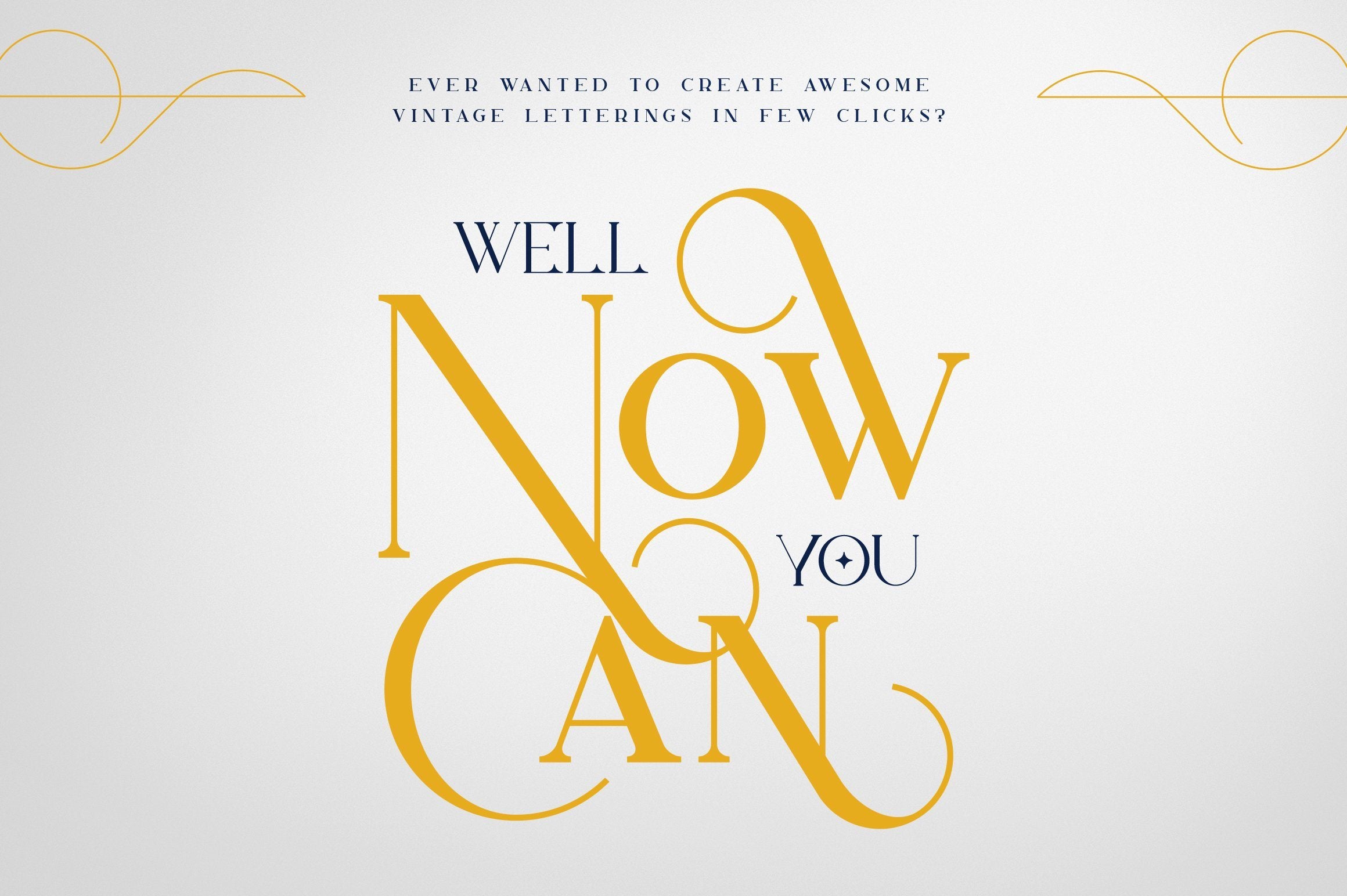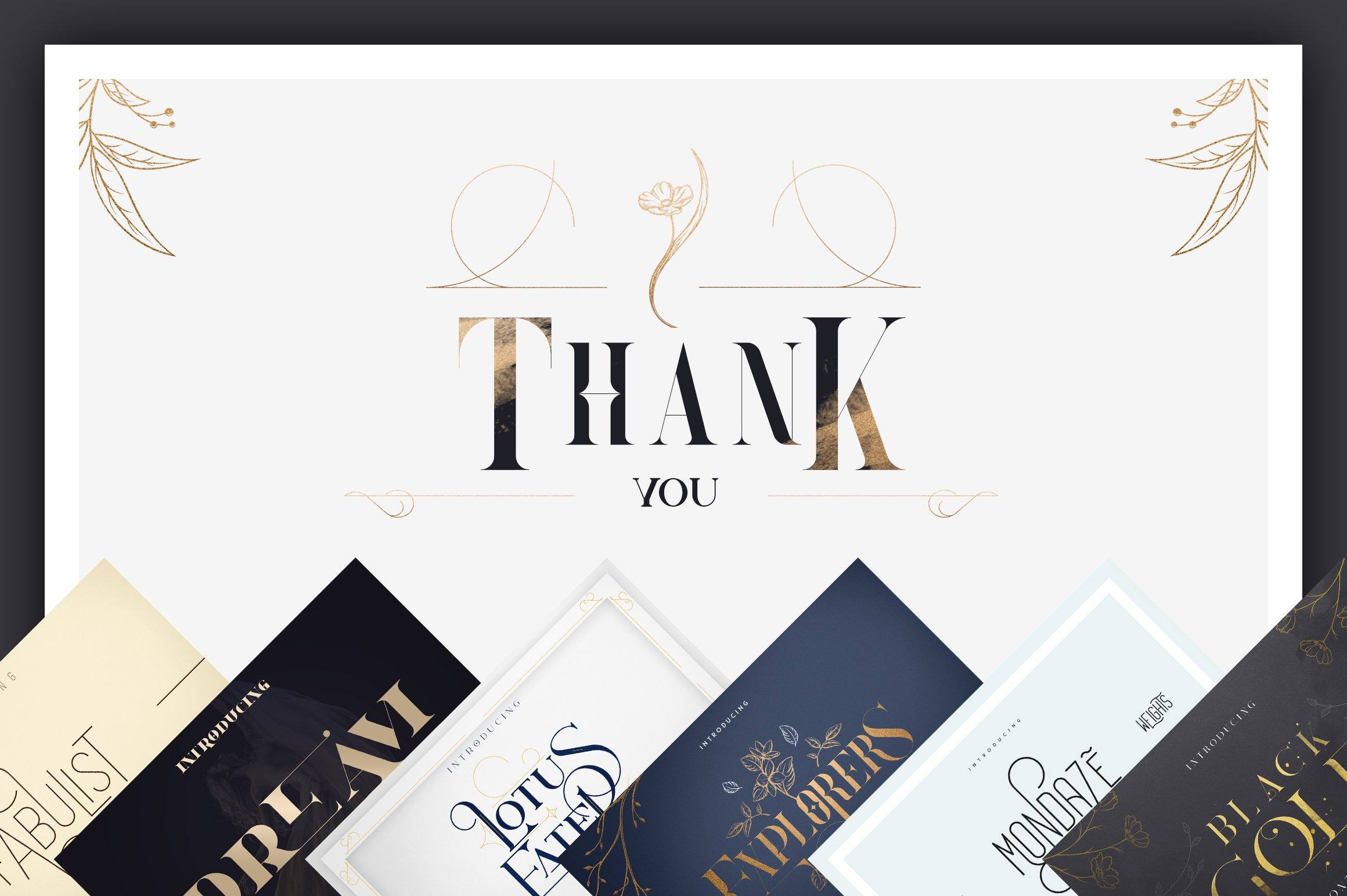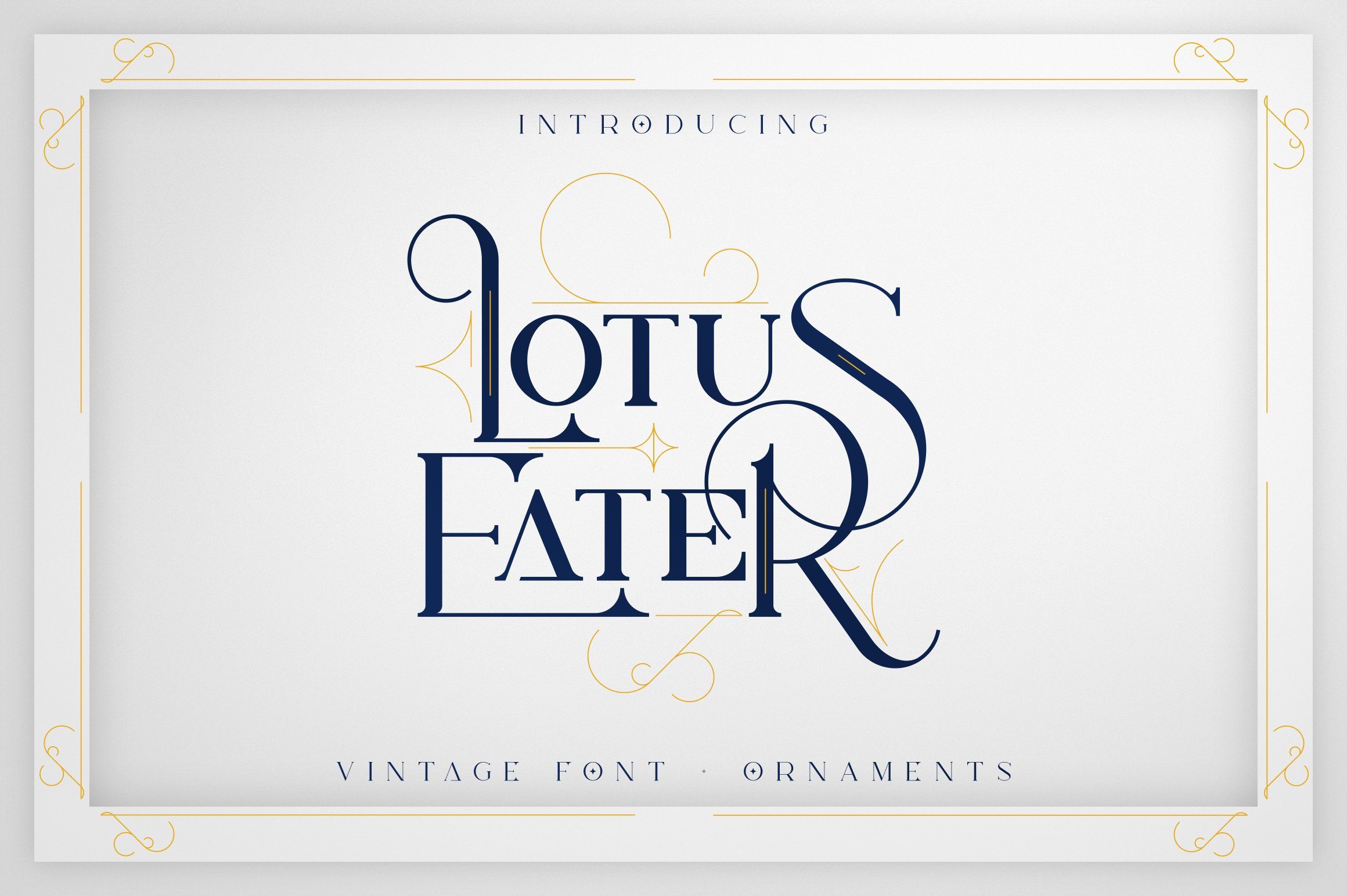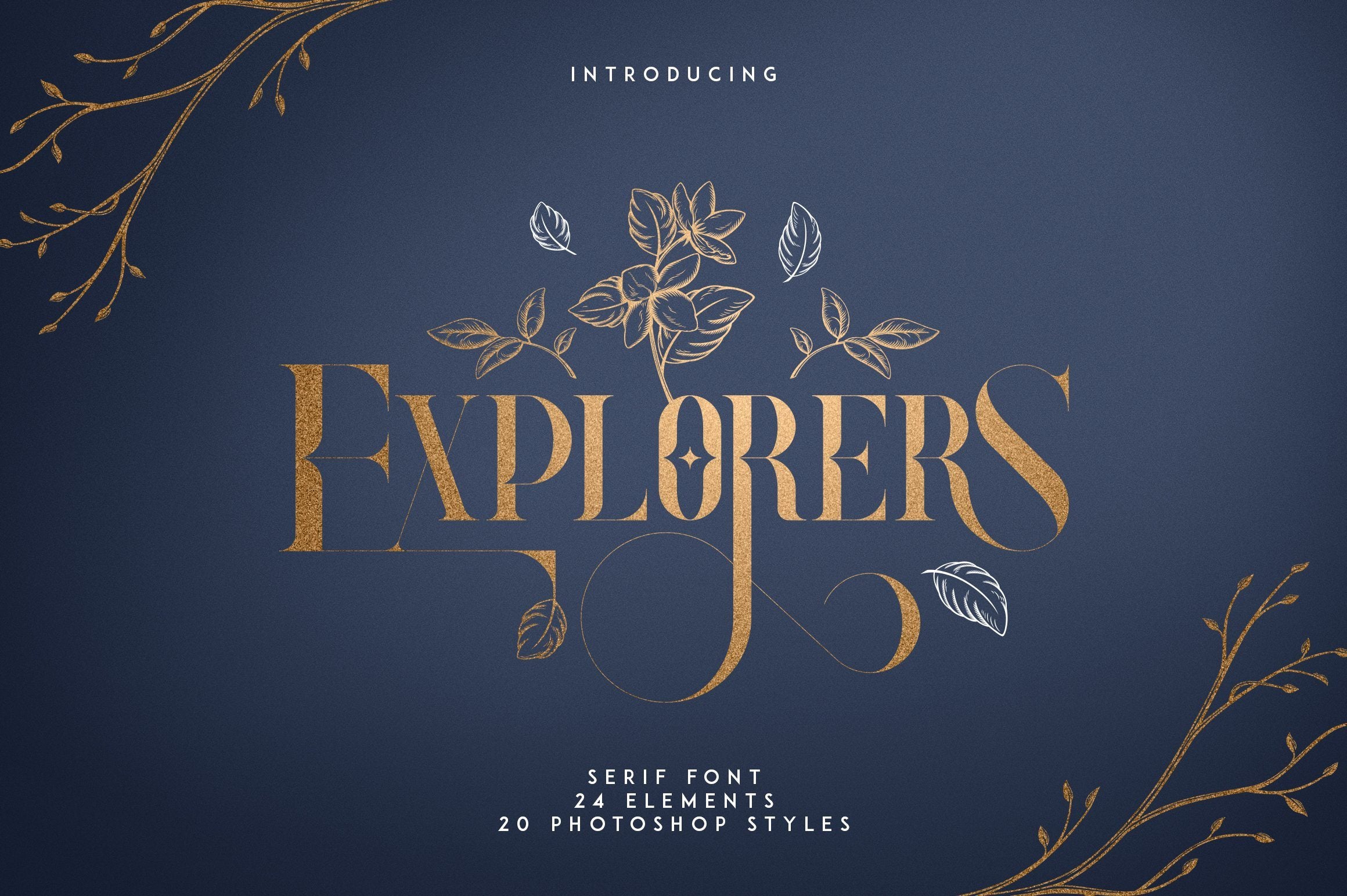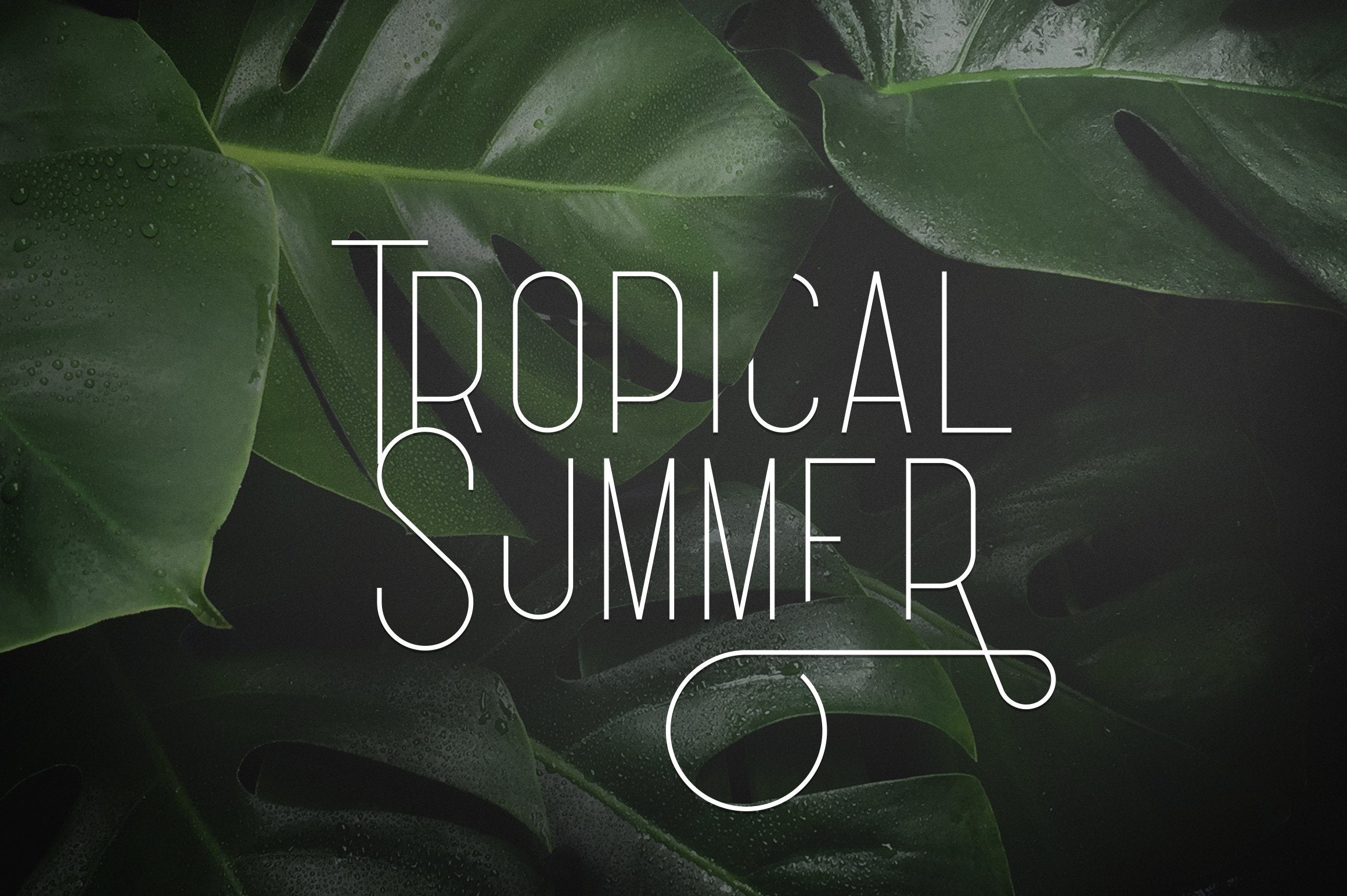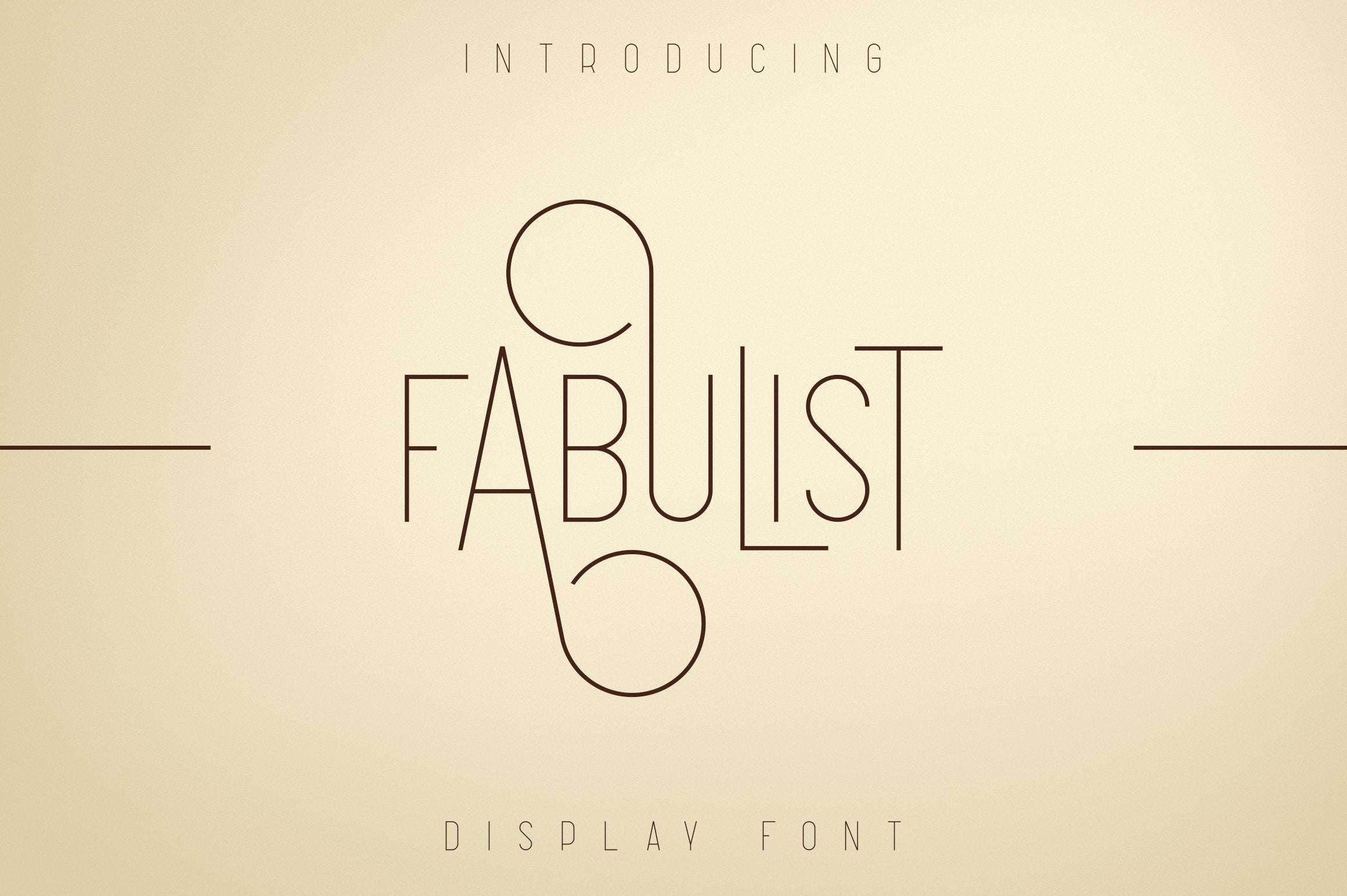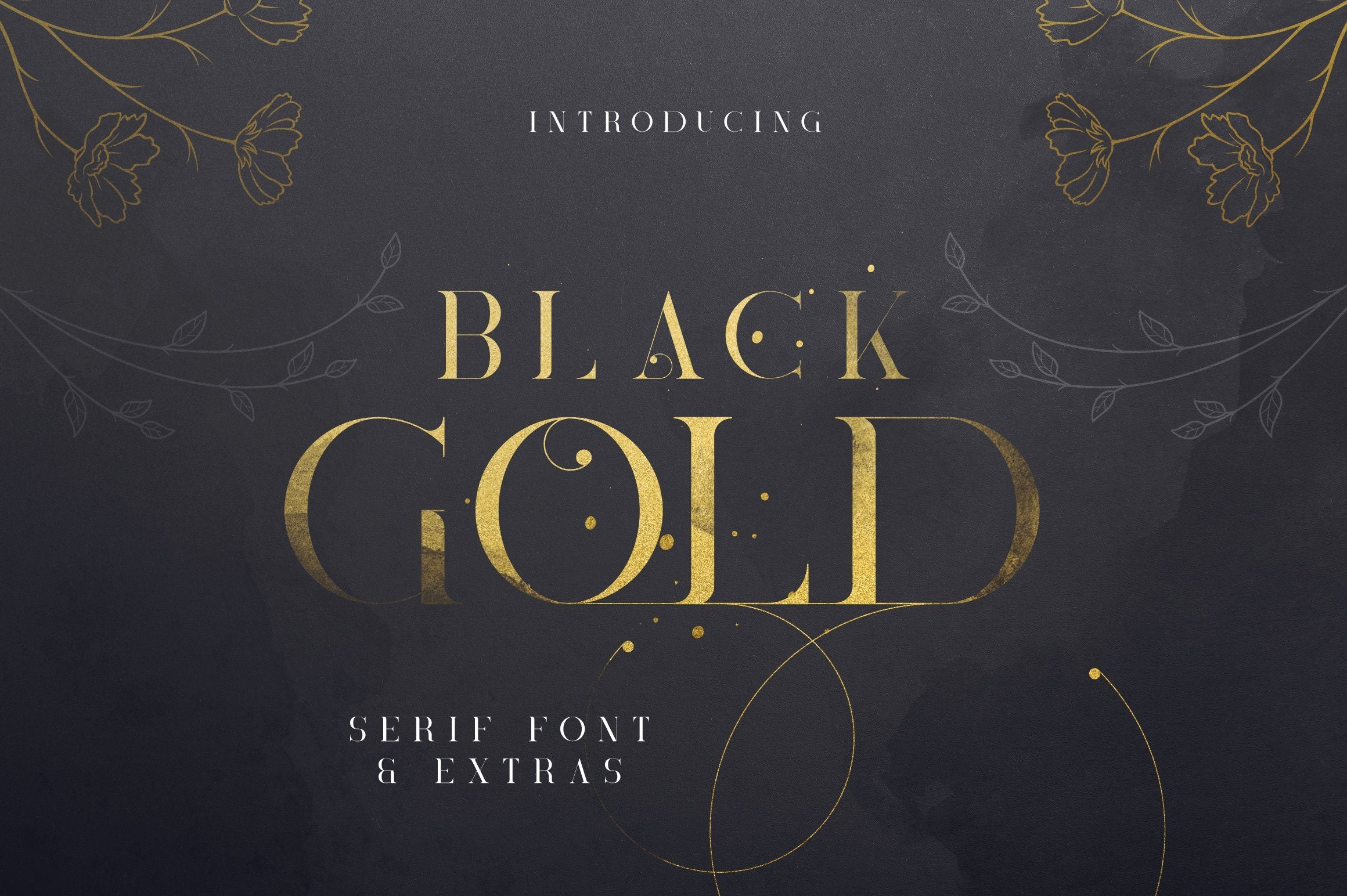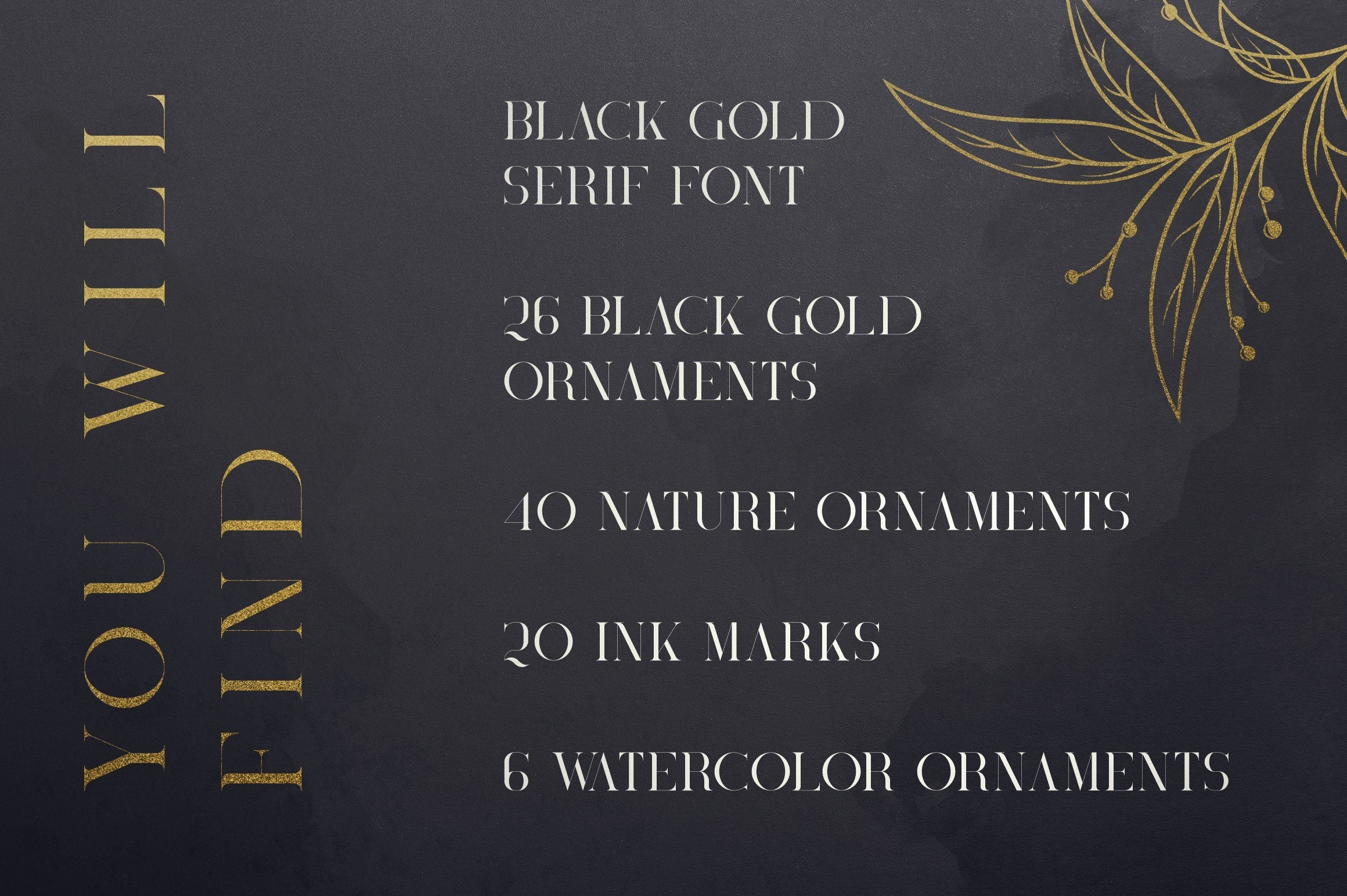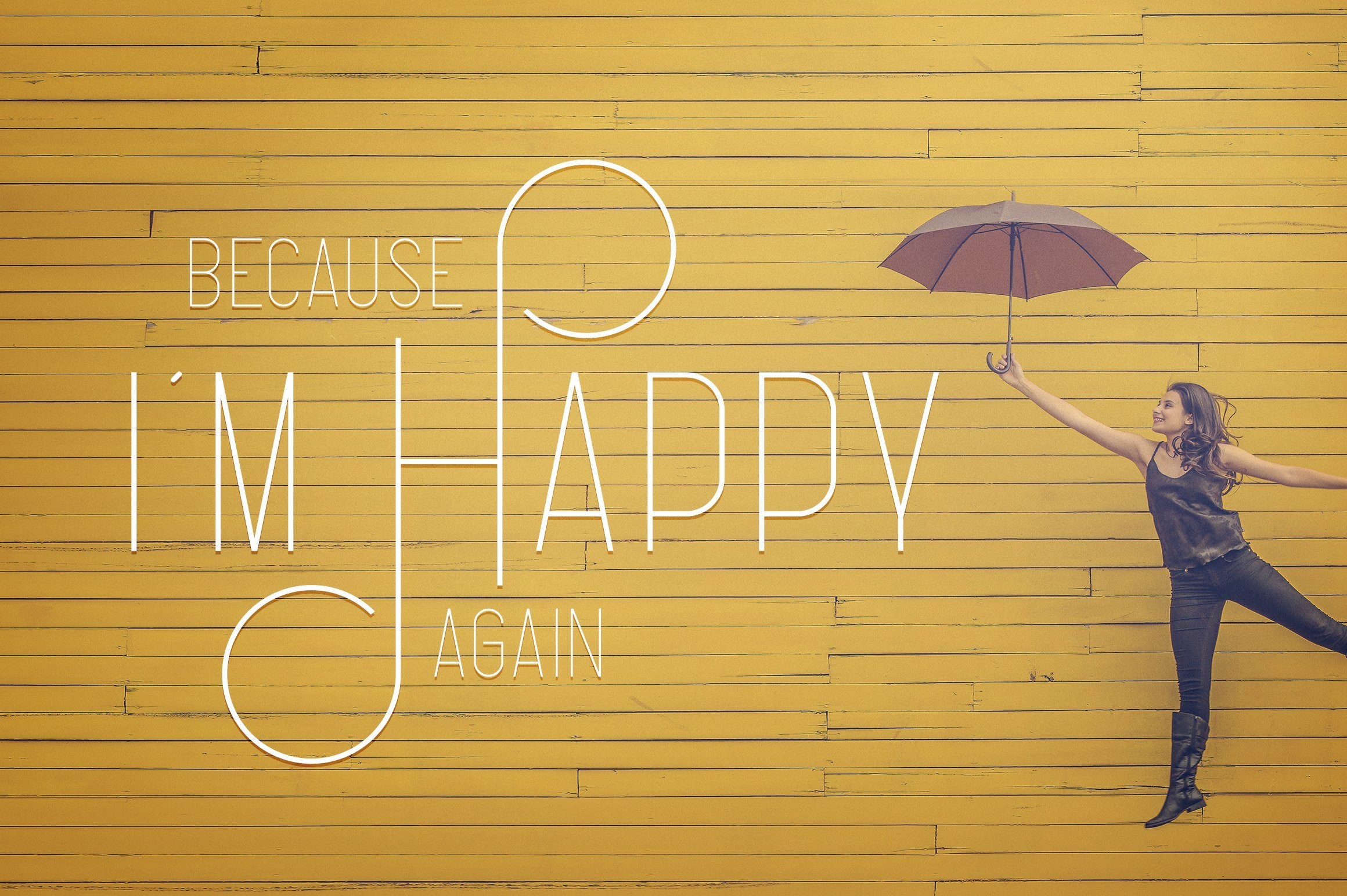
Bestseller Font Collection | 6in1
About Bestseller Font Collection | 6in1
Introducing the Bestseller font collection 6 typefaces in 1 Fabulist – Display font Fabulist is clean, modern font with tons of alternative glyphs, ligatures and multilingual support. It’s a very versatile font that works great in large and small sizes. Fabulist is perfect for branding projects, home-ware designs, product packaging, magazine headers – or simply as a stylish text overlay to any background image. Uppercase,lowercase, numeral,punctuation & Symbol Regular Tons of alternative glyphs Ligatures Multilingual support Explorers – Serif font + Extras Explorers is sophisticated font with tons of alternative glyphs, ligatures, elements, photoshop styles and multilingual support. It’s a very versatile font that works great in large and small sizes. Explorers is perfect for branding projects, home-ware designs, product packaging, magazine headers – or simply as a stylish text overlay to any background image. In the product you will find: Explorers serif font with tons of alternative glyphs, ligatures and multilingual support 24 Nature elements – Ai and EPS cs, PSD, JPEG, 24 PNGs files with transparent backgrounds 20 Photoshop styles in asl format Lotus Eater – Vintage font + extras Lotus Eater is clean, vintage font with ligatures, tons of alternative glyphs, ornament and multilingual support. It’s a very versatile font that works great in large and small sizes. Lotus Eater is perfect for branding projects, home-ware designs, product packaging, magazine headers – or simply as a stylish text overlay to any background image. Uppercase,lowercase, numeral,punctuation & Symbol Ligatures Tons of alternative glyphs 52 Ornaments Multilingual support Mondaze Typeface – 4 weights Mondaze is clean, rounded typeface with 4 weights, tons of alternative glyphs and multilingual support. It’s a very versatile font that works great in large and small sizes. Mondaze is perfect for branding projects, home-ware designs, product packaging, magazine headers – or simply as a stylish text overlay to any background image. Uppercase,lowercase, numeral,punctuation & Symbol Light Regular Bold Black Tons of alternative glyphs Clean Rounded Multilingual support Black Gold serif font + Extras Black Gold is sophisticated font with tons of alternative glyphs, ornaments, nature elements, photoshop styles, watercolours, ink marks and multilingual support. It’s a very versatile font that works great in large and small sizes. Black Gold is perfect for branding projects, home-ware designs, product packaging, magazine headers – or simply as a stylish text overlay to any background image. In the product you will find: Black Gold serif font with tons of alternative glyphs and multilingual support 26 Black Gold ornaments 40 Nature elements in PSD, EPS, Ai, JPEG formats 20 Ink marks in PSD, EPS, Ai, JPEG formats 10 Photoshop styles in ASL format 6 Watercolor Elements in PNG format with transparent background Dream – magical serif font Dream is elegant, clean font with 50 ligatures and multilingual support. It’s a very versatile font that works great in large and small sizes. Dream is perfect for branding projects, home-ware designs, product packaging, magazine headers – or simply as a stylish text overlay to any background image. Uppercase,lowercase, numeral,punctuation & Symbol Clean Multilingual support 50 Ligatures Feel free to contact me if you have any questions! Mock ups and backgrounds used are not included! Thank you! Enjoy!